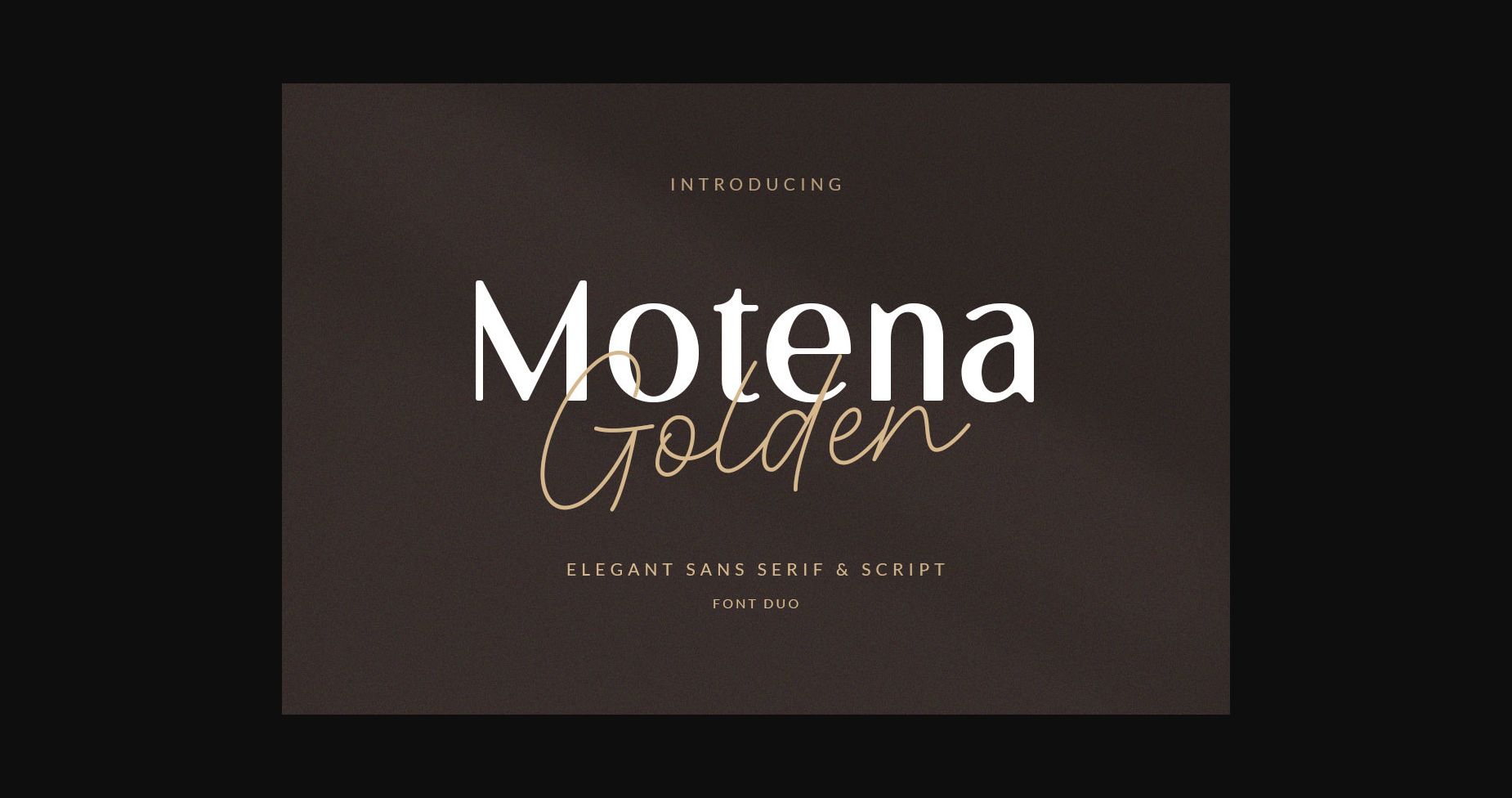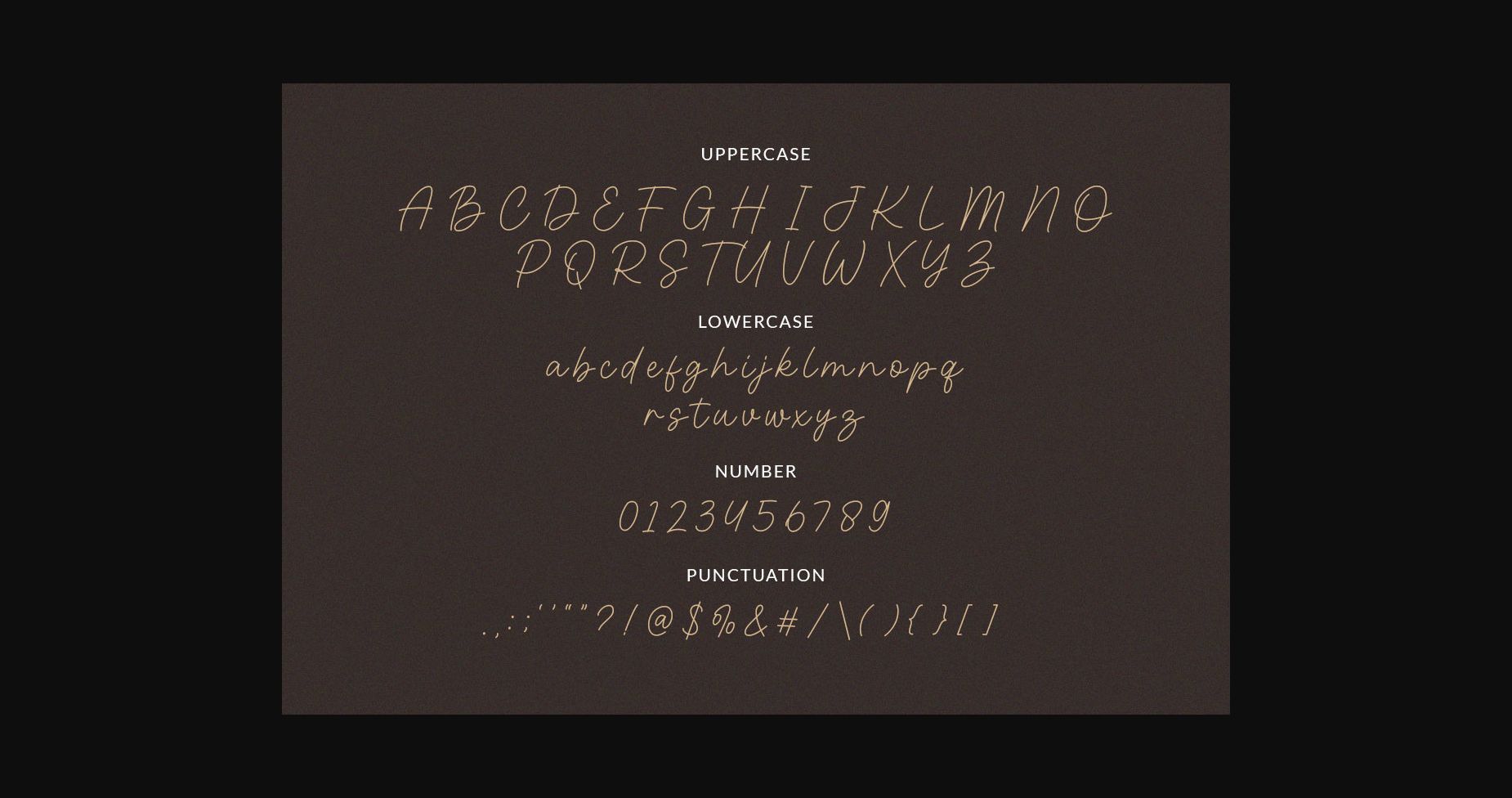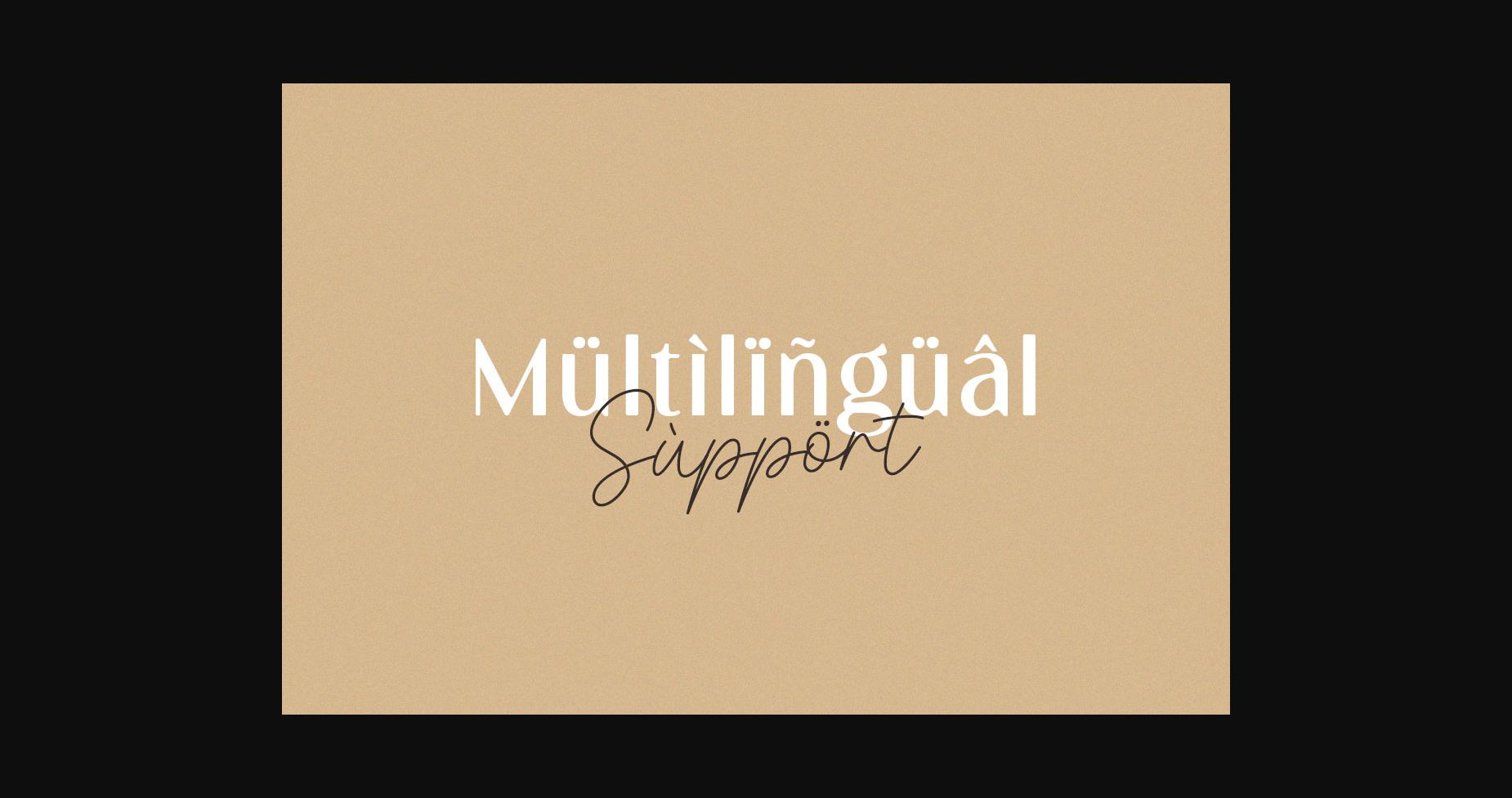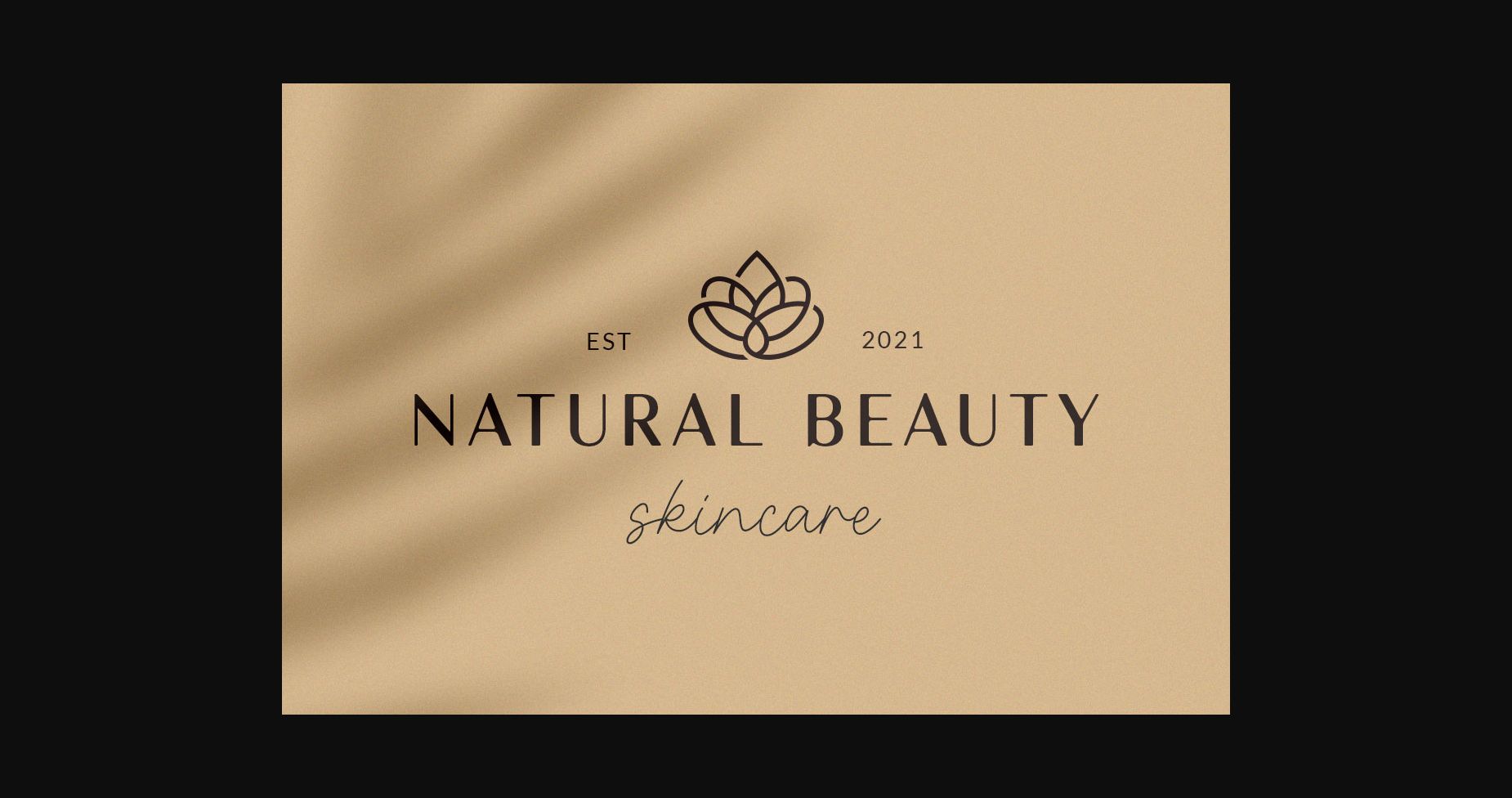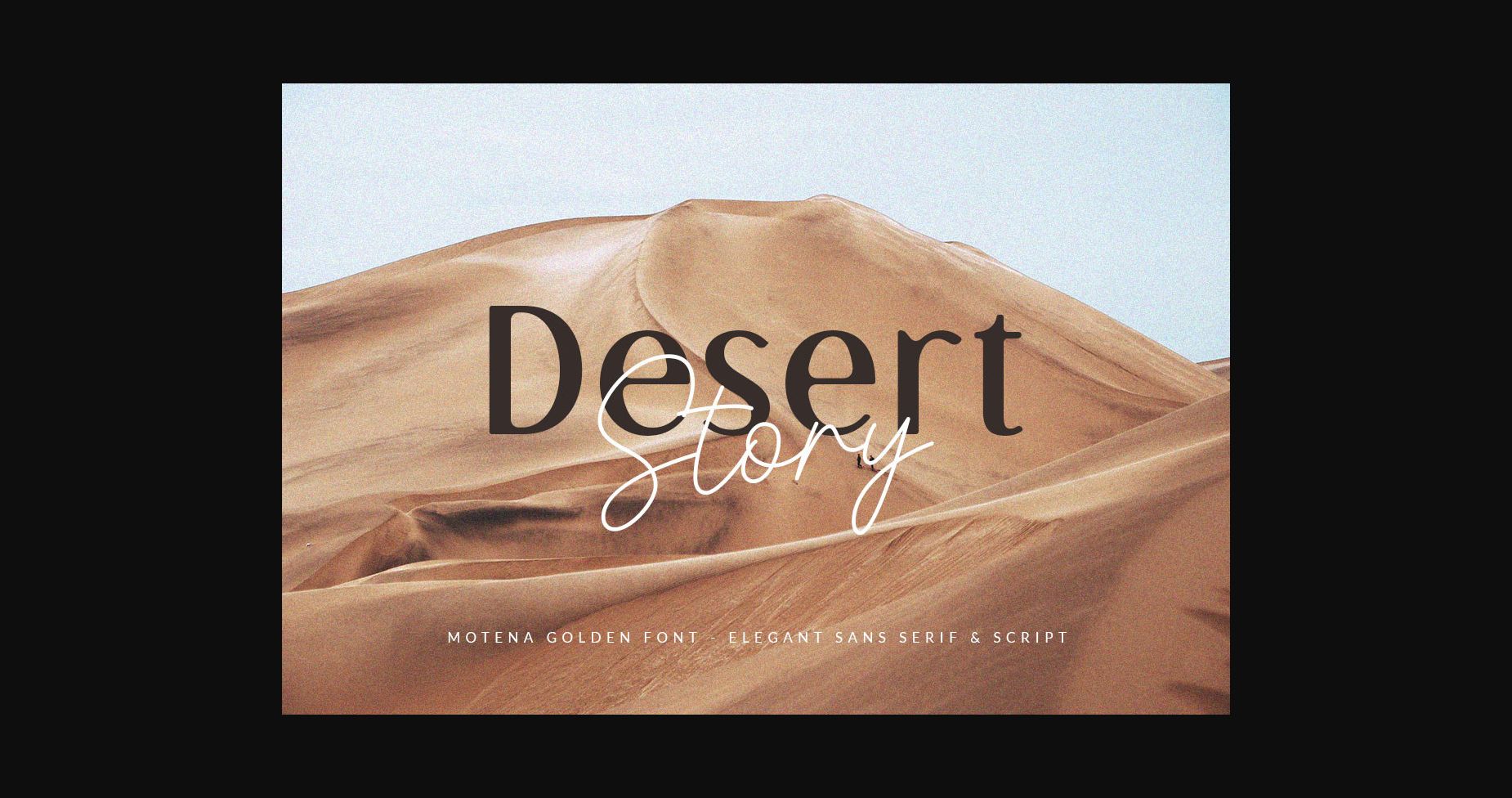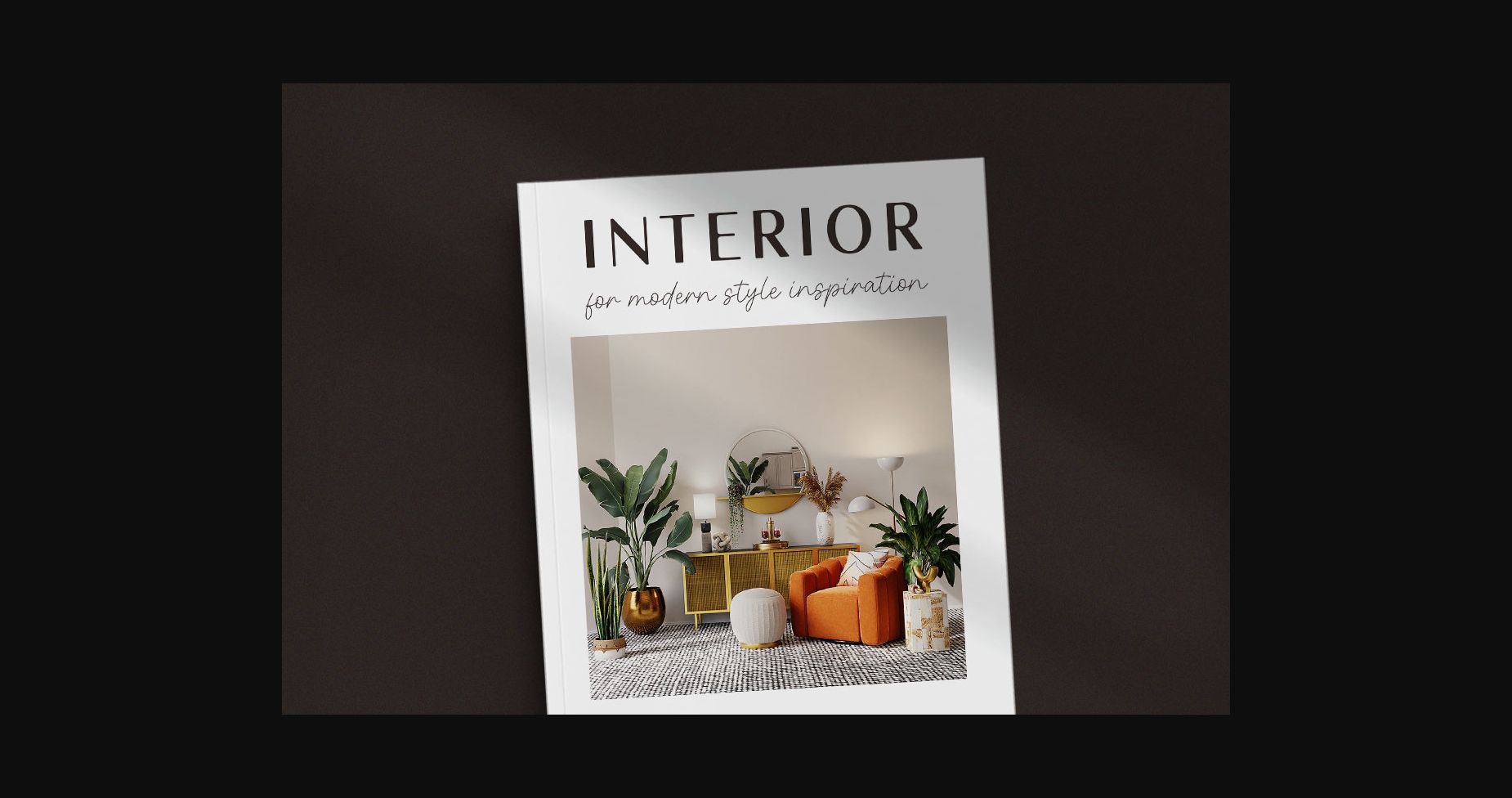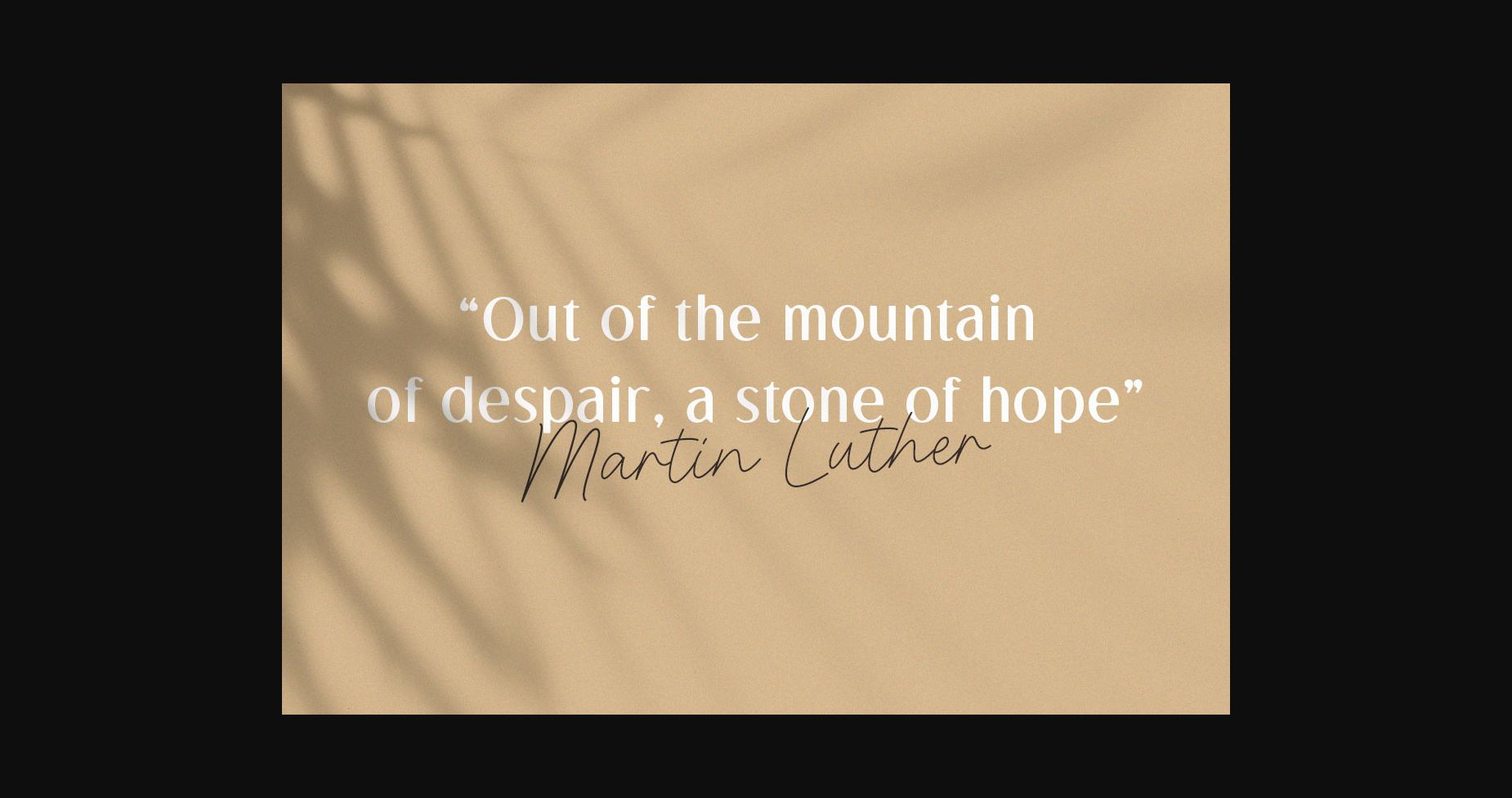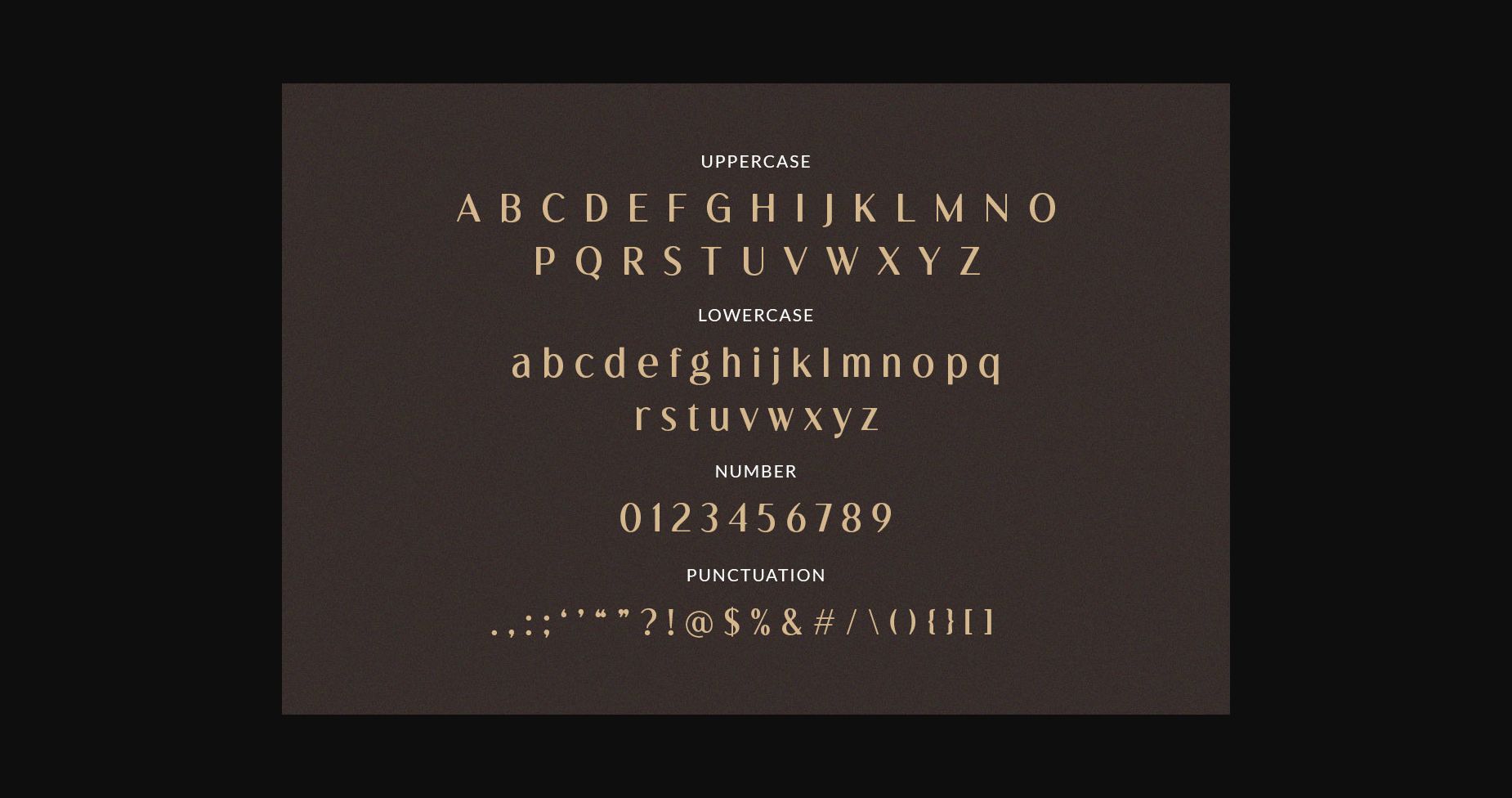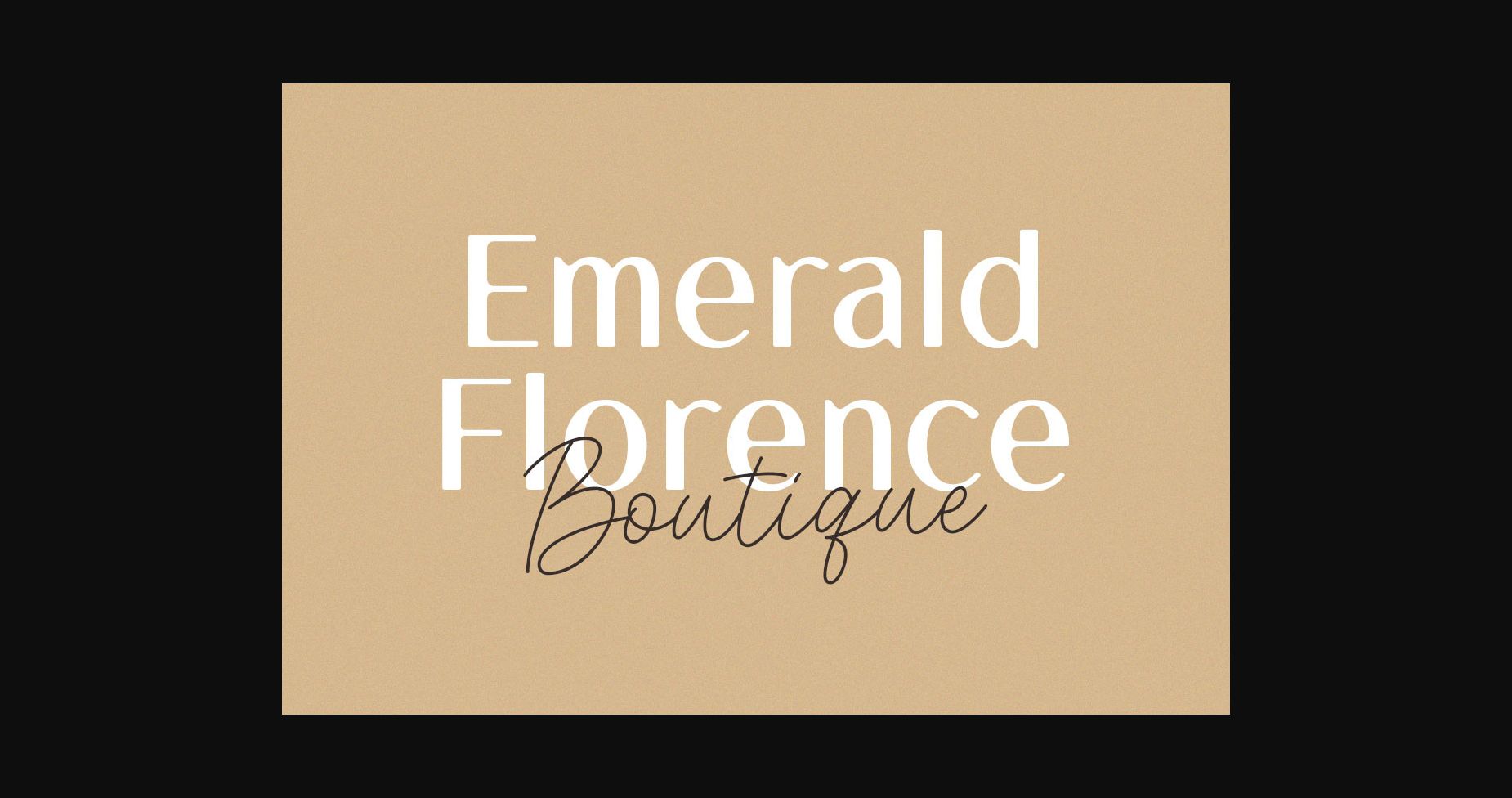
HomeSans Serif FontsMotena Golden Font Sans Serif Fonts Motena Golden Font FacebookXPinterestWhatsApp 1 of 11 ... Motena Golden Font Poster 2... Motena Golden Font Poster 3... Motena Golden Font Poster 4... Motena Golden Font Poster 5... Motena Golden Font Poster 6... Motena Golden Font Poster 7... Motena Golden Font Poster 8... Motena Golden Font Poster 9... Motena Golden Font Poster 10... Motena Golden Font Poster 11... About Motena Golden Font Motena Golden is an elegant pair of script and sans serif font. It is suitable for any project purpose such as invitation, logotype, packaging, branding, and more. DOWNLOAD NOW People also explored Sagres Font Magical Stylish Font Mariagata Font Gothycal Font Rachelle Romantic Font Dellione Font Special Christmas Font Love Lady Font Amsterday Font 349 0 TagsMotena Golden Font Previous articleAesthetis FontNext articleFungka City Font LEAVE A REPLY Cancel reply Comment: Please enter your comment! Name:* Please enter your name here Email:* You have entered an incorrect email address! Please enter your email address here Website: Save my name, email, and website in this browser for the next time I comment. Personal Use Free Advantage Personal Use Free Read more about this font Antaro Personal Use Free Read more about this font Caramel Latte Personal Use Free Read more about this font Ginóra Personal Use Free Read more about this font BLOG Fonts That Capture the Spirit of New York City New York City is more than just a place—it’s an experience, a rhythm, a visual language... 5 Fonts That Will Dominate Design Trends in 2026 How to Cut Any Font on Cricut: Convert a Font to SVG (Free) Elegant Wedding Invitation Fonts – Handwritten & Script Fonts